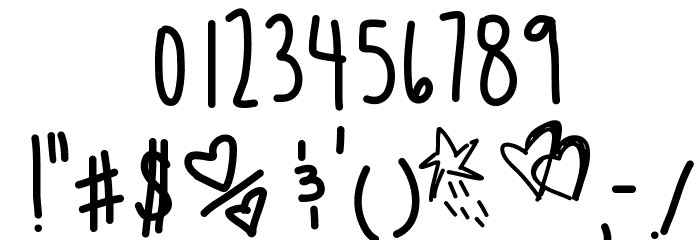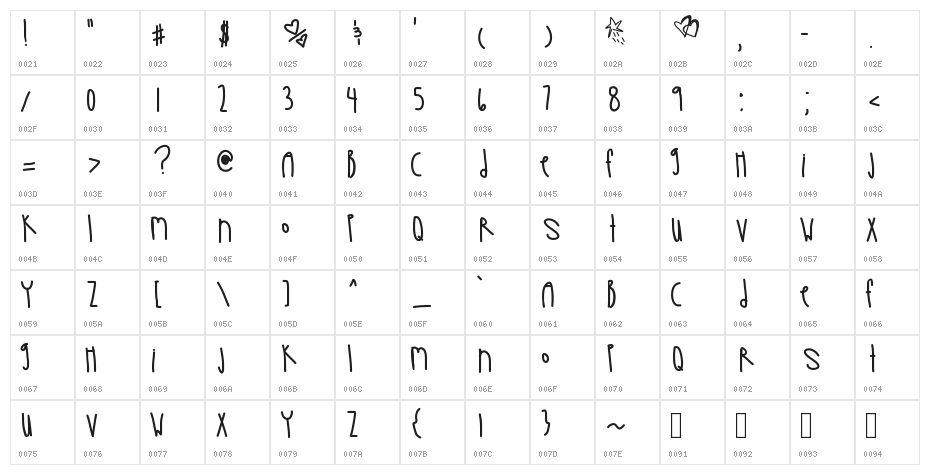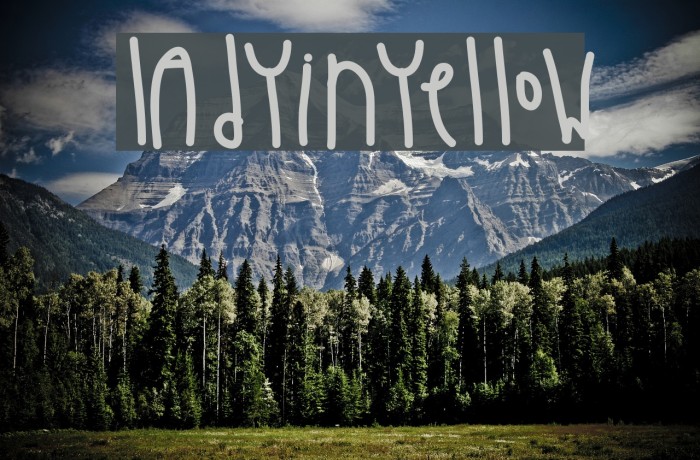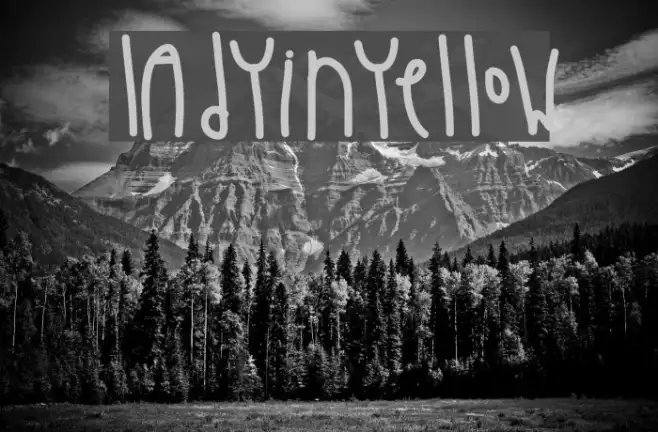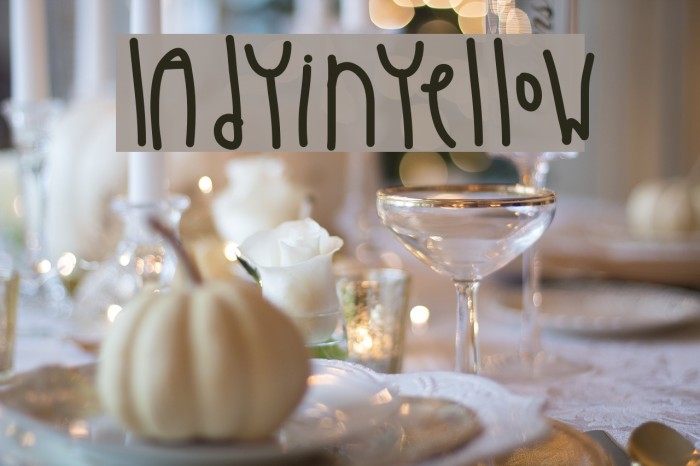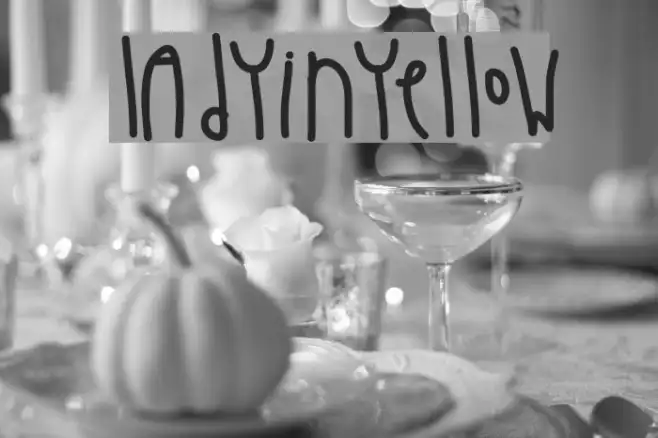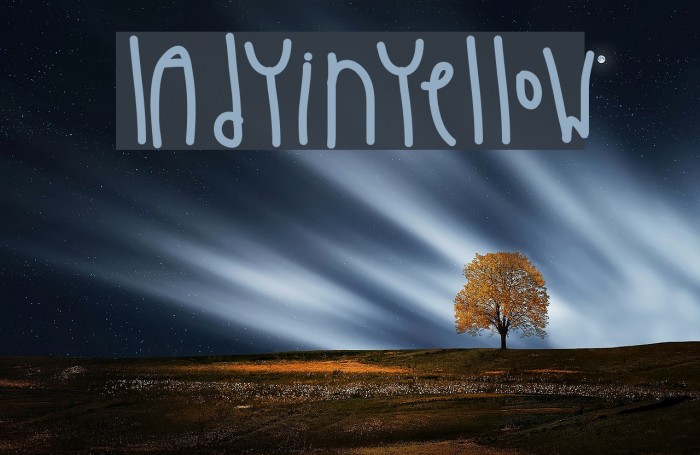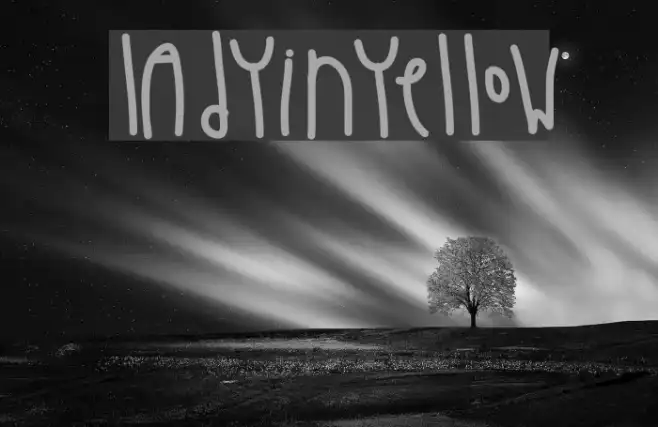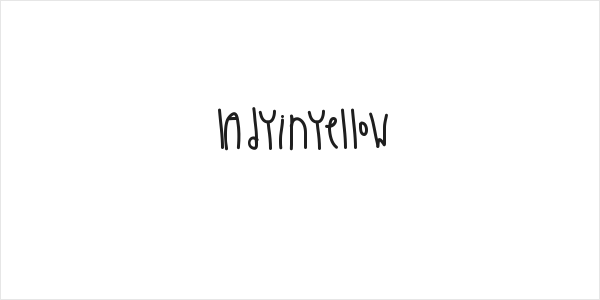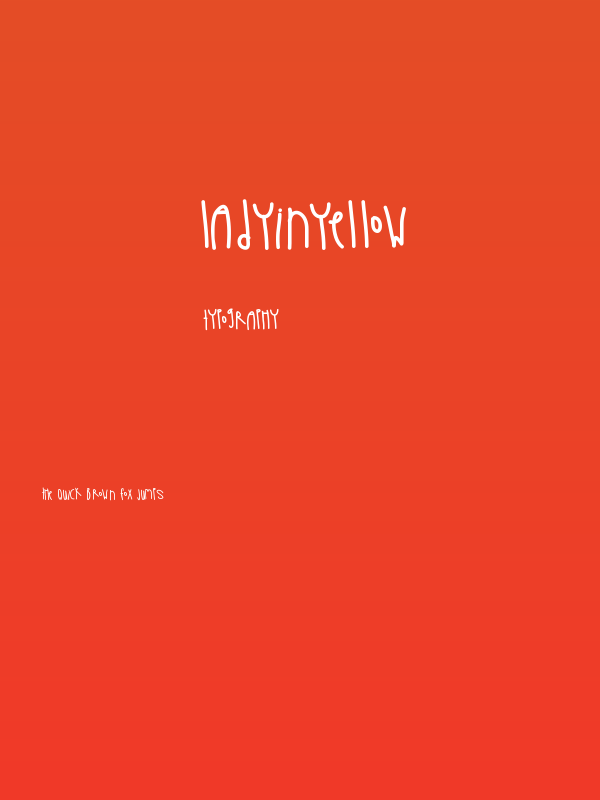
LadyInYellow Font
LadyInYellow Description
This font features a playful and whimsical handwritten style, characterized by its irregular and organic letterforms. The strokes are smooth and rounded, giving it a friendly and approachable appearance. The uppercase and lowercase letters maintain a consistent style, with a slight slant that adds to its casual feel. Numbers and special characters are included, each following the same playful design. The font's overall look is informal and artistic, making it suitable for creative projects.
| Overall Style | Casual and Artistic |
| Use Case | Headlines, Creative projects, Informal communications |
| Proposed Projects | Ideal for greeting cards, children's books, playful branding, and creative social media graphics. |